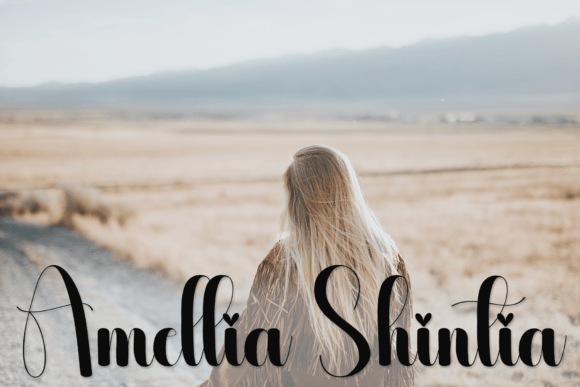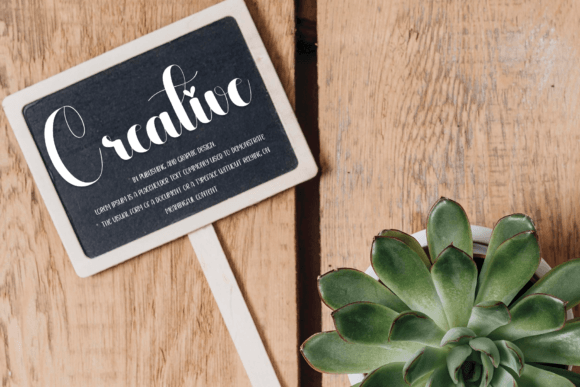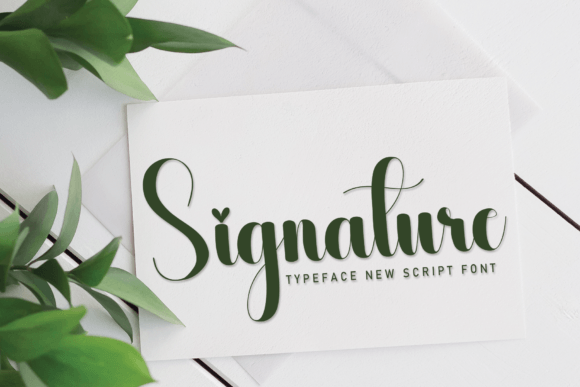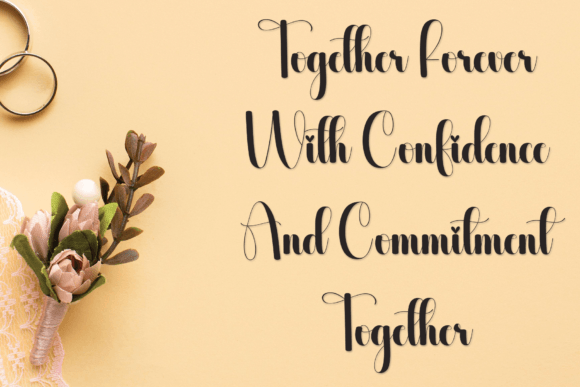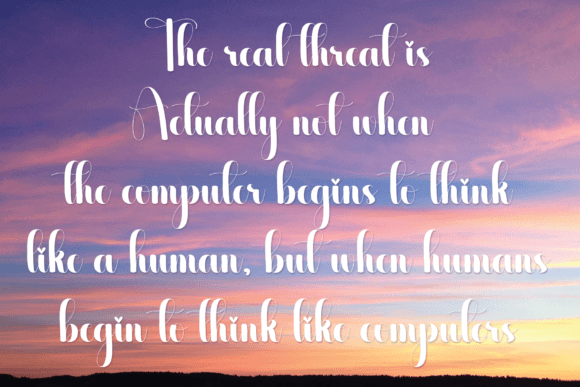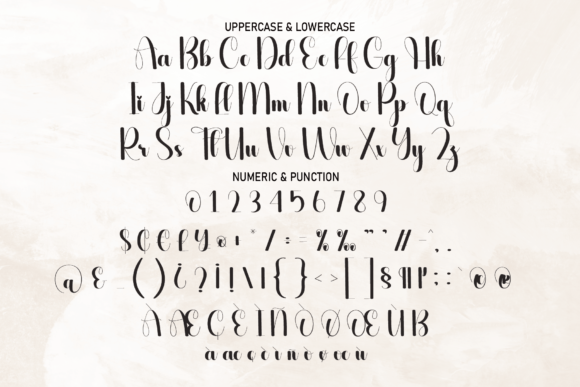
Introducing Angelina Font: The Sweet and Elegant Handwritten Font
Are you looking for a font that can add a touch of elegance and romance to your designs? Look no further than Angelina Font, a beautiful and cursive handwritten font that is perfect for a variety of design projects. With its gentle and sweet appearance, Angelina Font is sure to make your designs stand out and leave a lasting impression.
What Makes Angelina Font Special?
Angelina Font is a unique and stylish font that is designed to add a touch of sophistication and elegance to your designs. Its cursive and handwritten style gives it a personal and friendly feel, making it perfect for designs that require a human touch. Whether you’re working on a branding project, creating a logo, or designing a wedding invitation, Angelina Font is the perfect choice.
Features of Angelina Font
- Sweet and Cursive Handwritten Style: Angelina Font features a beautiful and elegant cursive handwritten style that is sure to add a touch of romance and sophistication to your designs.
- Versatile: This font is perfect for a variety of design projects, including branding, logos, wedding invitations, greeting cards, fashion designs, and more.
- Elegant and Casual: Angelina Font strikes the perfect balance between elegance and casualness, making it perfect for designs that require a touch of sophistication without being too formal.
- Easy to Read: Despite its elegant and cursive style, Angelina Font is easy to read and understand, making it perfect for designs that require a clear and concise message.
Use Cases for Angelina Font
Angelina Font is a versatile font that can be used in a variety of design projects. Here are some use cases where Angelina Font can shine:
- Branding: Use Angelina Font to create a unique and memorable brand identity that stands out from the crowd.
- Wedding Invitations: Add a touch of romance and elegance to your wedding invitations with Angelina Font.
- Greeting Cards: Create beautiful and heartfelt greeting cards with Angelina Font that are sure to impress.
- Fashion Designs: Use Angelina Font to add a touch of sophistication and elegance to your fashion designs, such as lookbooks and marketing promotions.
- Logos: Create a unique and memorable logo with Angelina Font that represents your brand’s personality and values.
Why Designers and Crafters Love Angelina Font
Designers and crafters love Angelina Font for its unique and elegant style that adds a touch of sophistication to their designs. Here are some reasons why:
- Unique Style: Angelina Font features a unique and stylish cursive handwritten style that sets it apart from other fonts.
- Ease of Use: Angelina Font is easy to use and can be easily integrated into a variety of design projects.
- Customizable: Angelina Font can be customized to fit your design needs, making it perfect for designers and crafters who require a high level of flexibility.
In conclusion, Angelina Font is a beautiful and elegant handwritten font that is perfect for designers and crafters who require a touch of sophistication and romance in their designs. With its unique and stylish cursive style, versatility, and ease of use, Angelina Font is sure to become a favorite among designers and crafters. Whether you’re working on a branding project, creating a logo, or designing a wedding invitation, Angelina Font is the perfect choice.